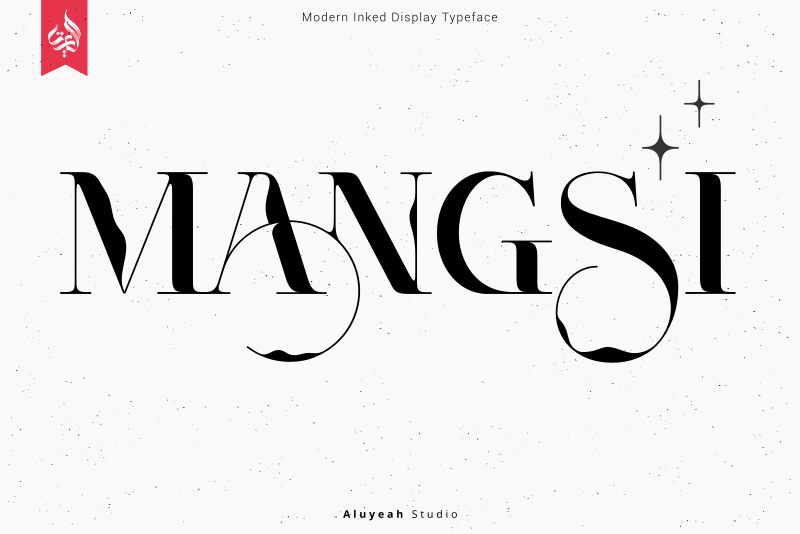
Mangsi
Mangsi font by Aluyeah Studio effortlessly combines the elegance of inked brush strokes with modern serif lines. This contemporary display typeface boasts high contrast and artistic flair, presenting a sophisticated yet distinctive look. With over 170 alternates and ligatures, Mangsi’s unique details elevate its overall visual impact.
Ideal for branding projects, editorial design, product packaging, invitations, logos, posters, social media graphics, book covers, fashion magazines, websites, brochures, and art exhibitions. This font is a versatile free tool for creators aiming to infuse a refined style into their work.